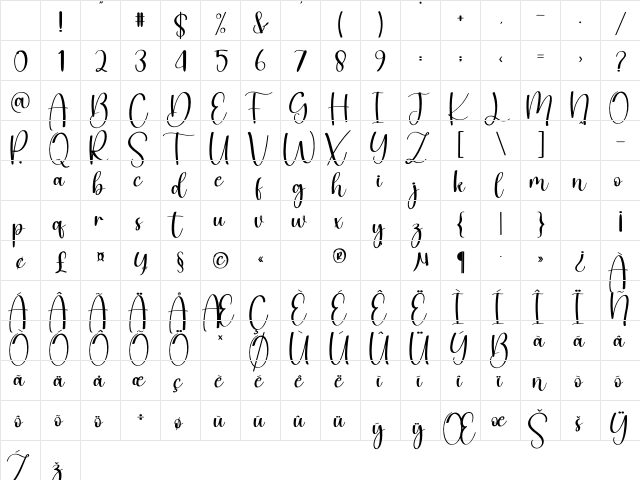
Complete Barbie Signature Regular glyph index. Displaying only characters natively supported by Barbie Signature Regular font.
Barbie Signature is a composed and adaptable typeface that performs quietly and consistently across a wide range of design contexts.